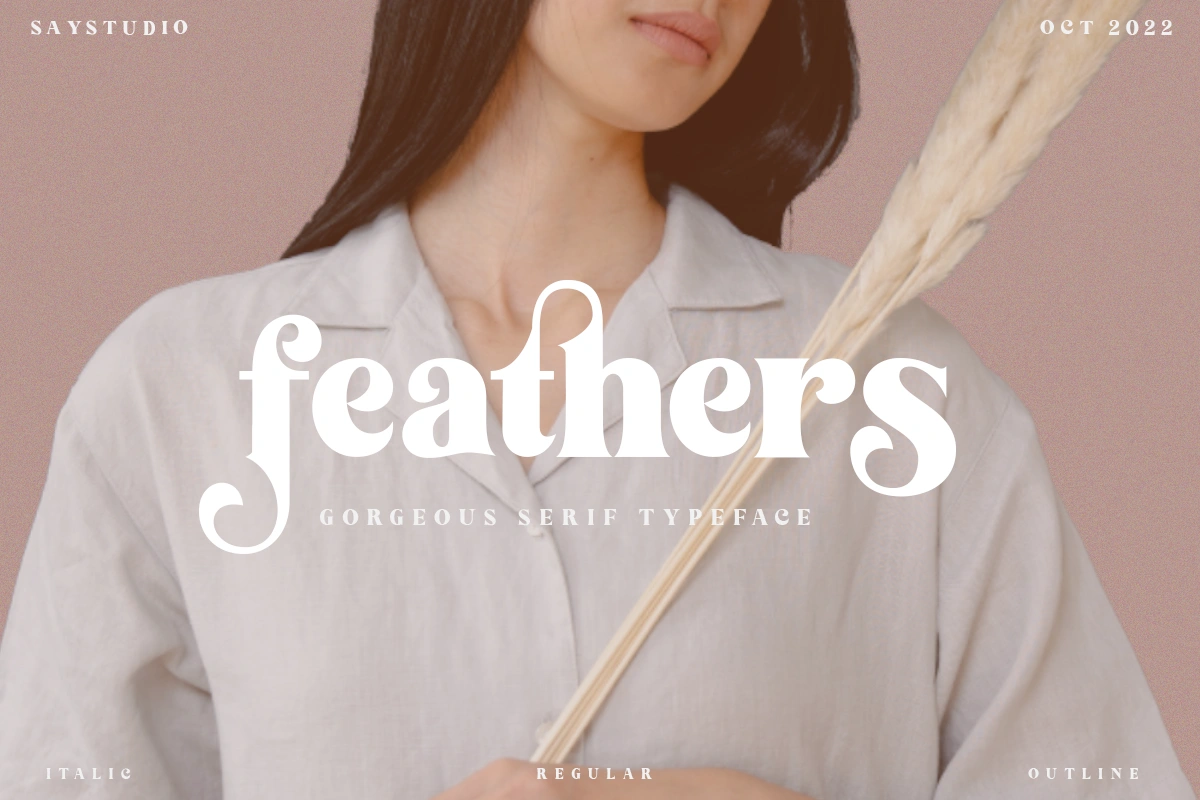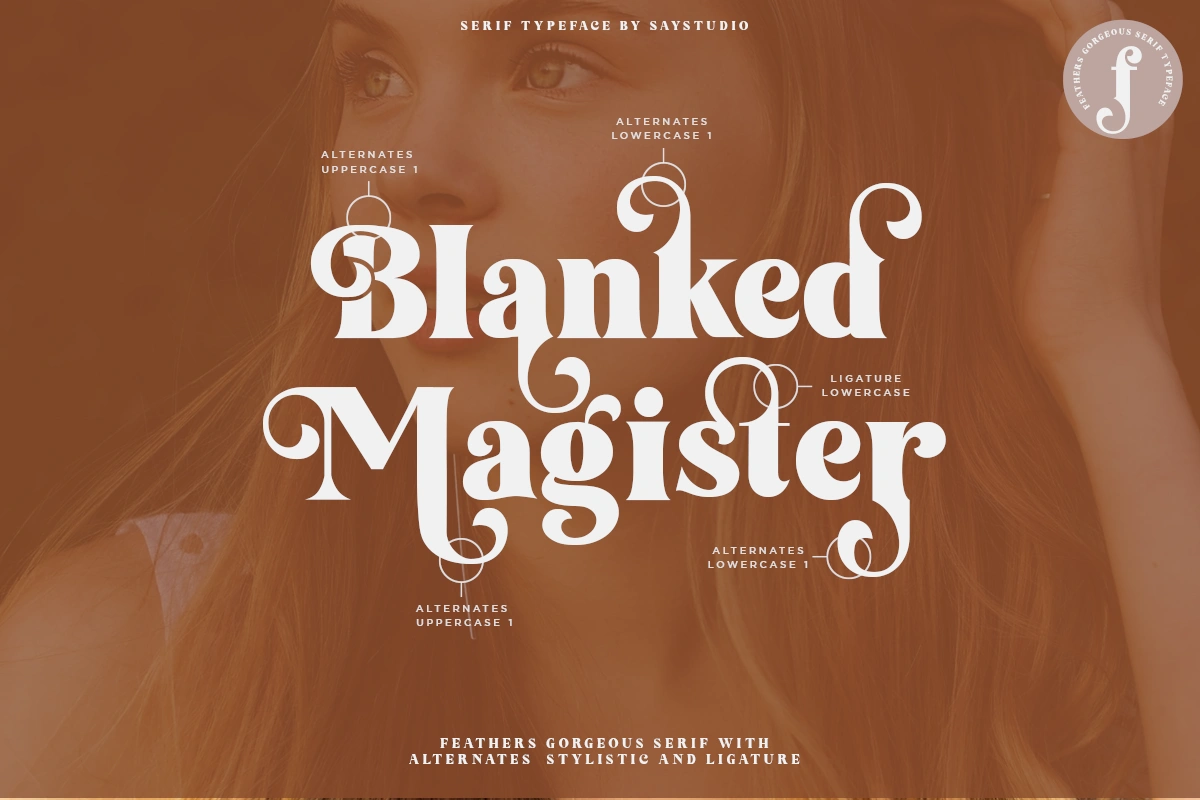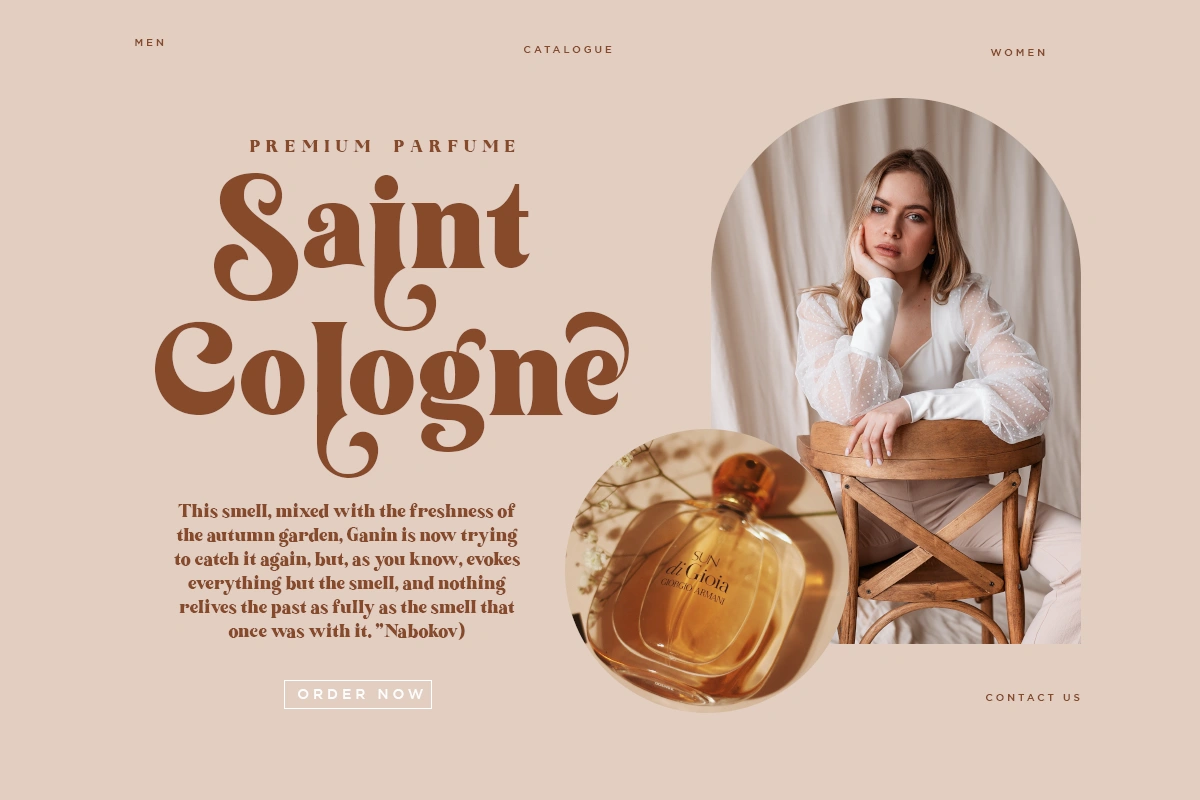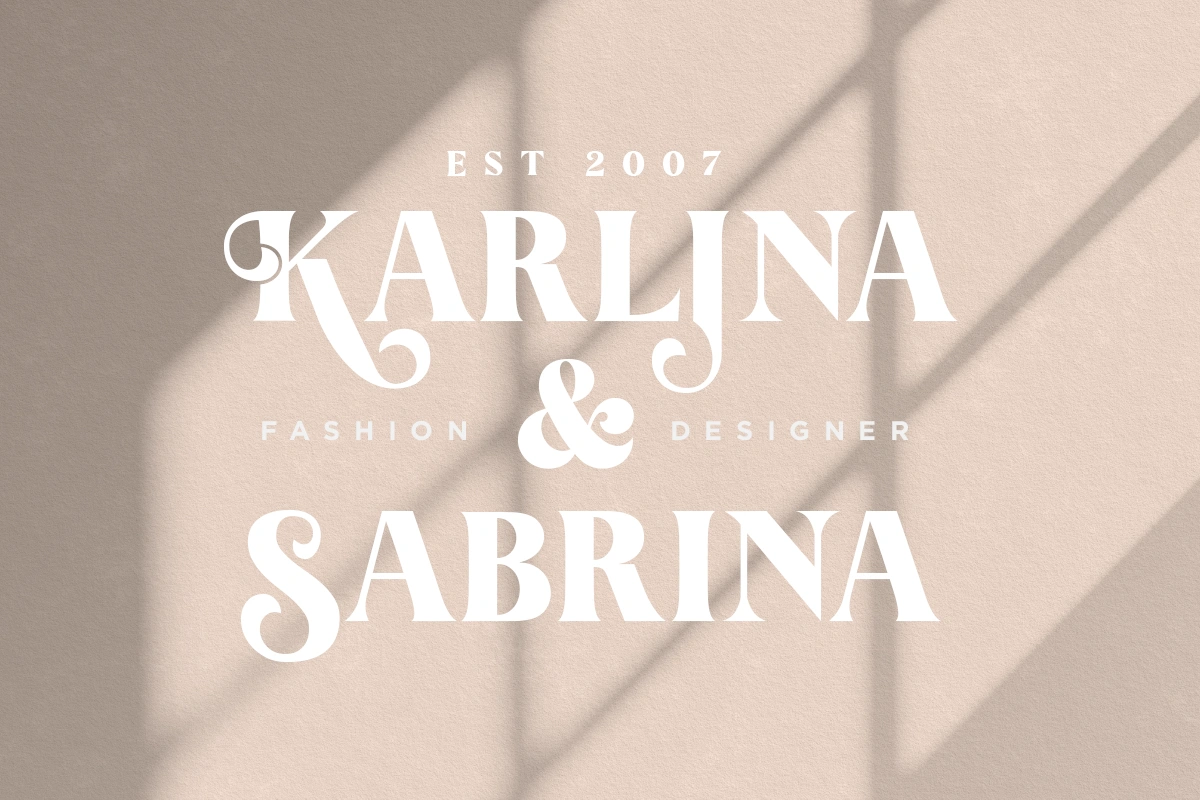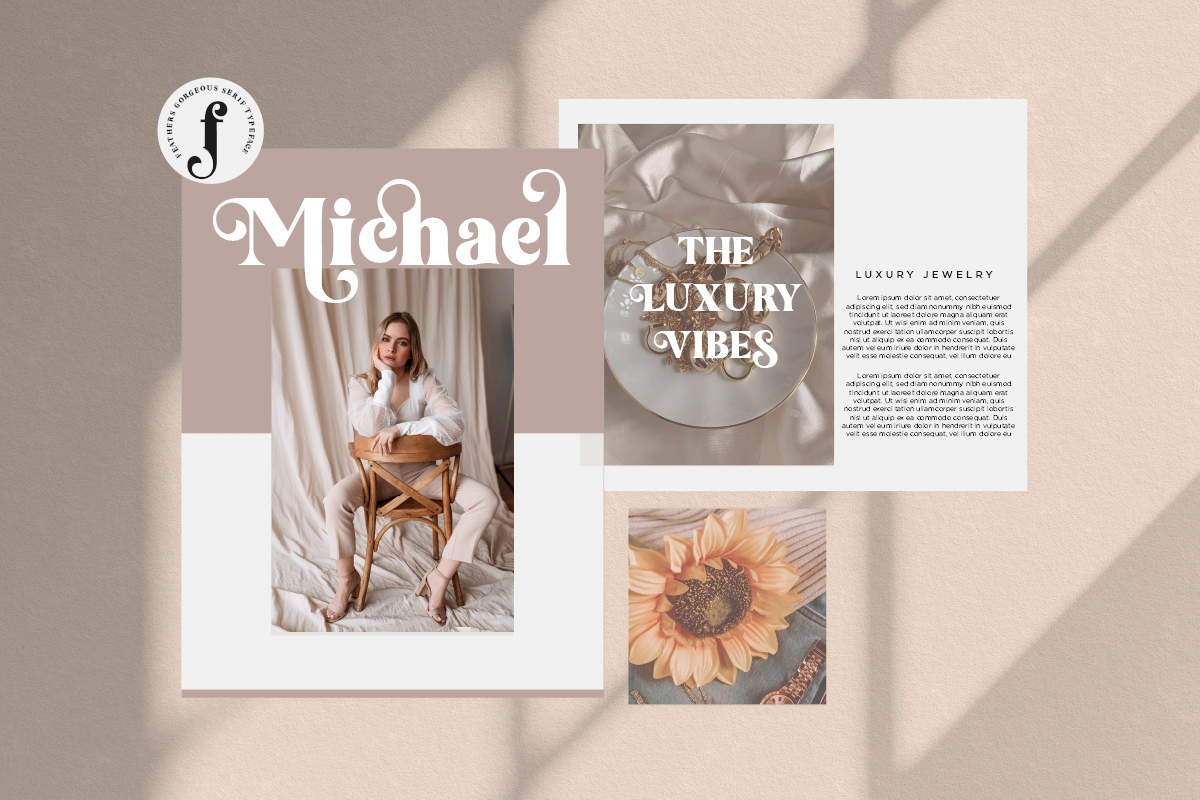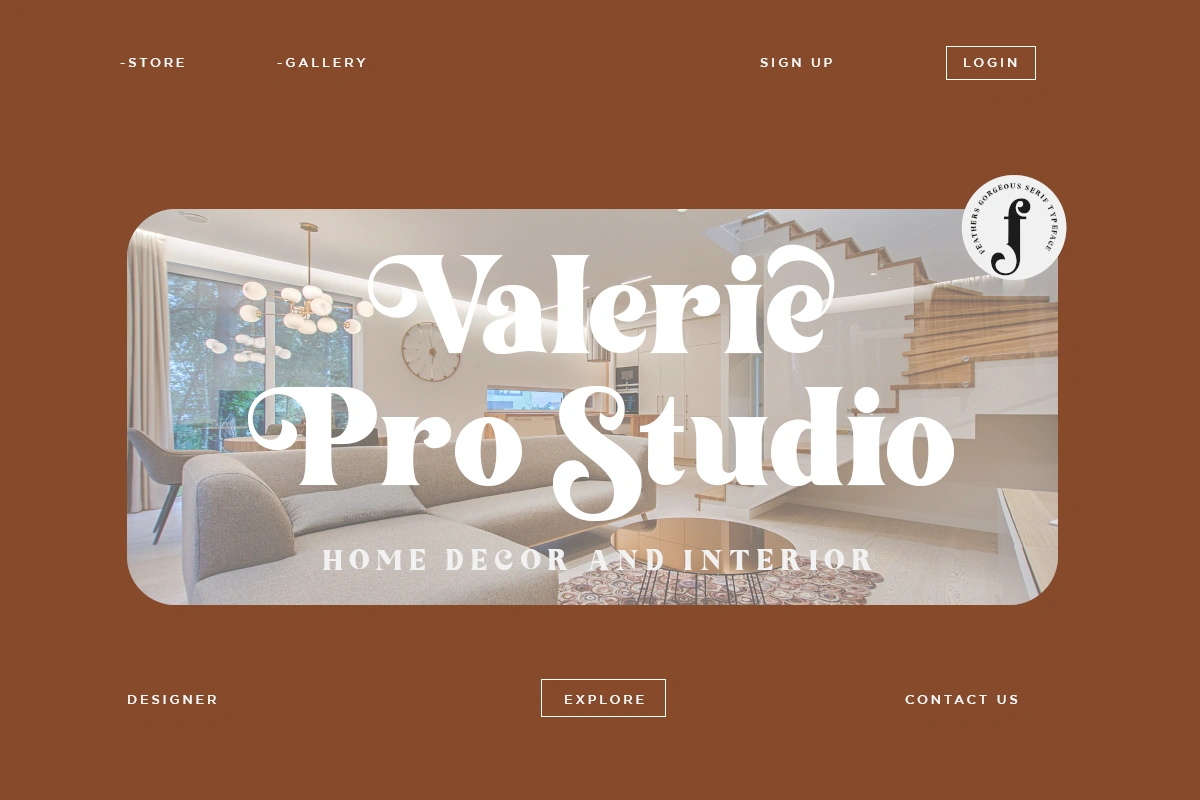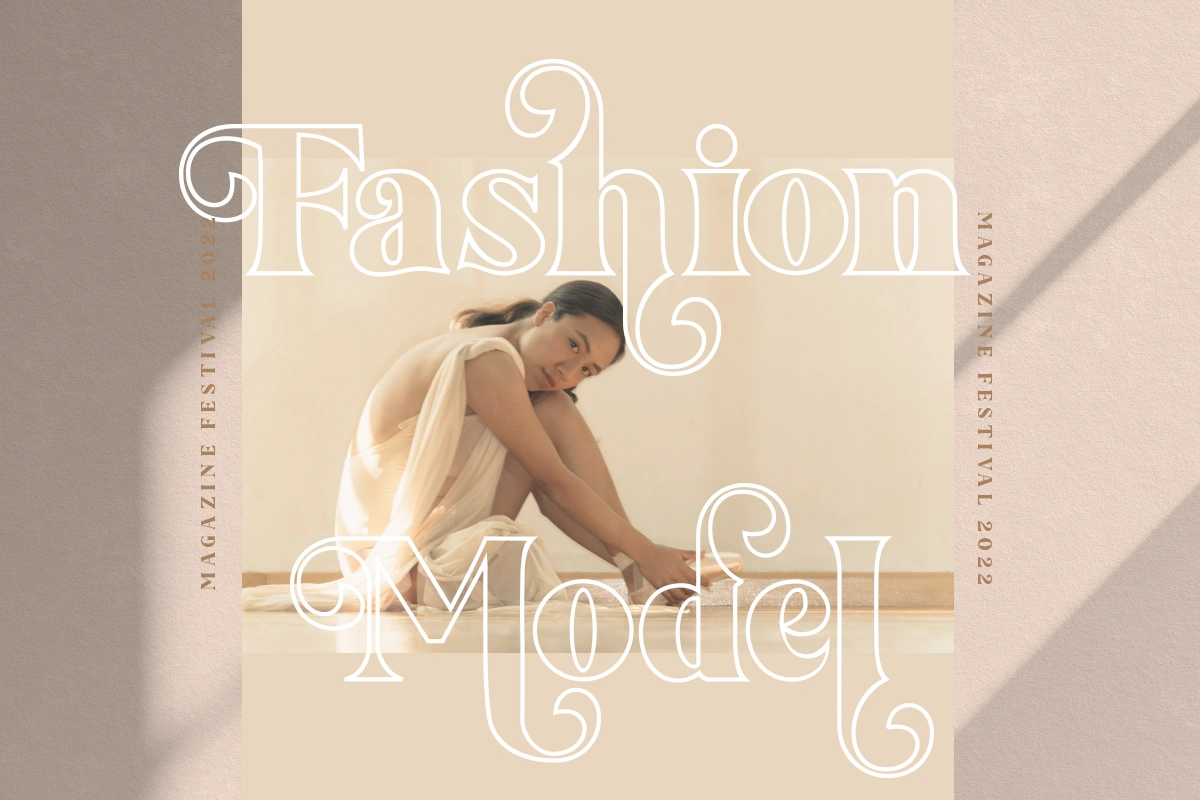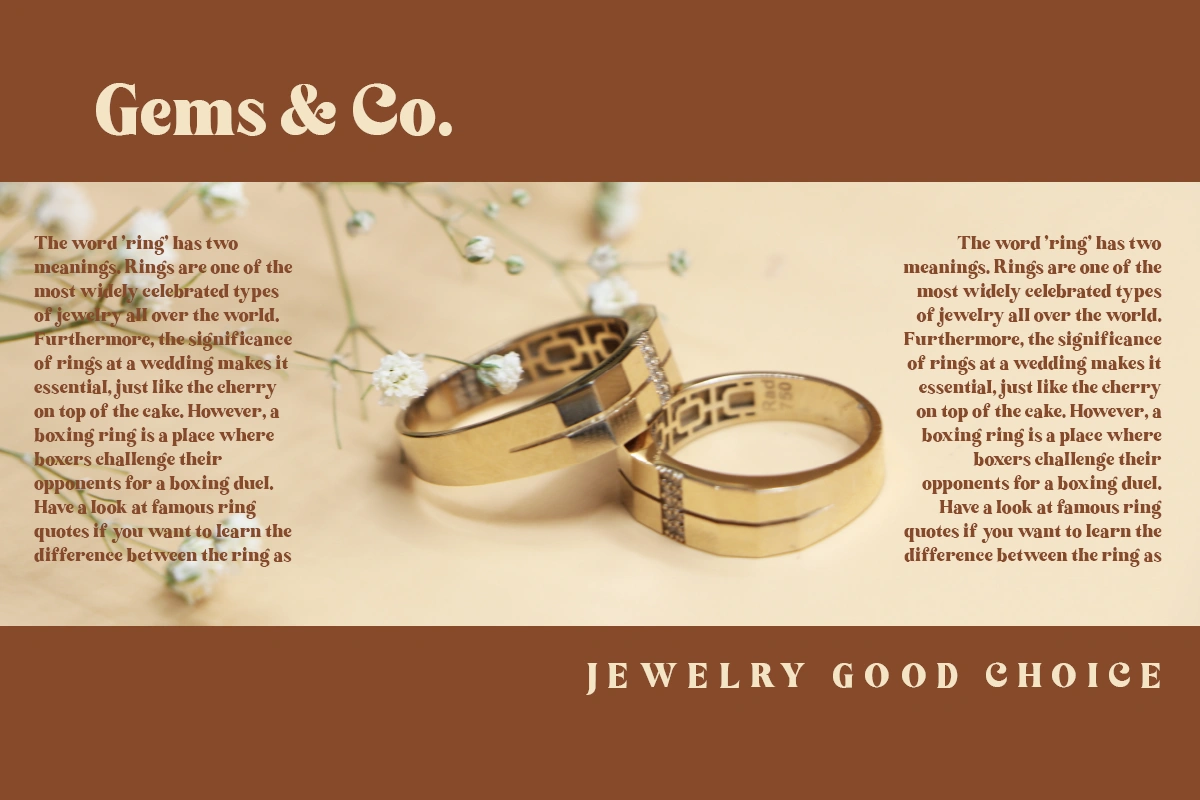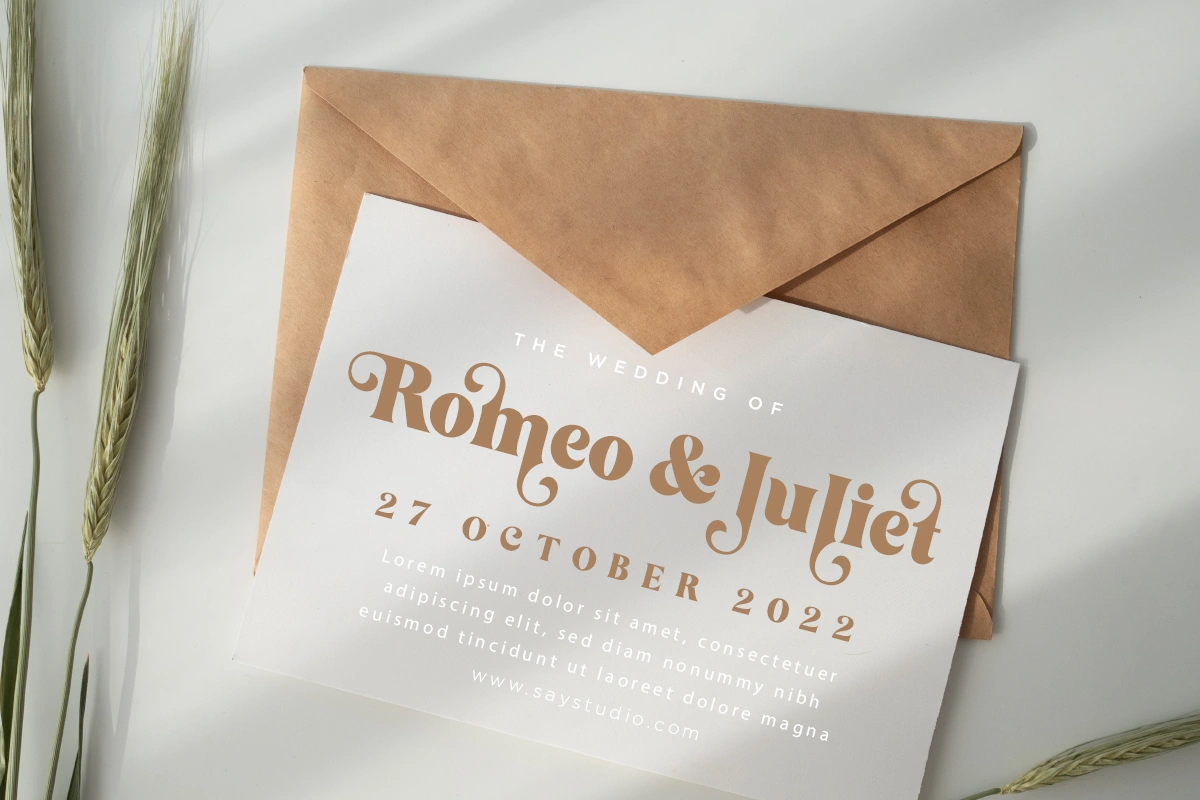
Feathers is our first serif font featuring both upper and lowercase characters! Featuring unique beautiful curves and a modern feel Inspired by old records and vintage typography. It has a beautiful range of stylistic alternates with unique characters making it a versatile powerhouse for logos, headlines, posters, shirts, you name it! Pick up Kinder today and make the world more beautiful with your creations! What you get! Feathers (TTF, OTF, WOFF) 50 Unique Alternates to make your new design truly yours. Ligature for your creation Multilingual support Access to me if you have any questions! Recommended use in adobe creative suite! If you have any questions don't hesitate to reach out, I would be happy to help! Have, a wonderful Day Say Studio